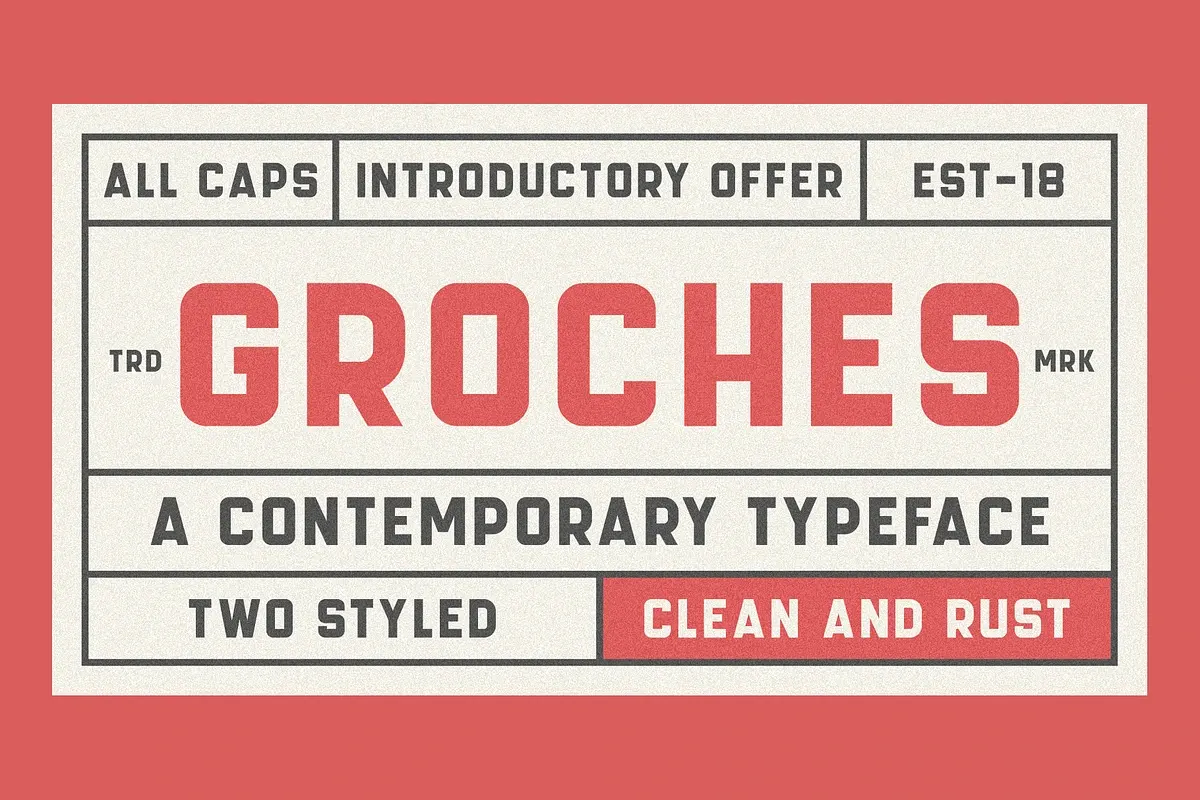
The GROCHES Font Free Download is a bold and modern typeface designed to bring strength and character to your designs. With its unique letterforms and impactful style, this font is perfect for creating eye-catching logos, headlines, posters, branding, and digital content. Whether you're working on a creative project, contemporary branding, or promotional materials, GROCHES adds a distinctive and powerful look to your work.
GROCHES Font Free Download is ideal for designers looking to create bold, high-visibility typography. Perfect for modern branding, advertising, or creative campaigns, this font will elevate your projects with its unique style. Download it today and infuse your creative work with the strong, modern appeal of GROCHES!